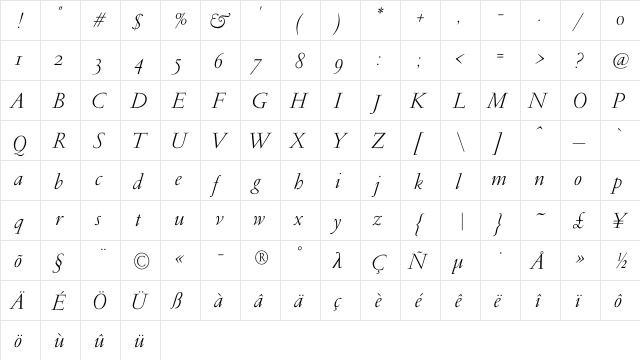
PF Garamond Classic OsF Light Italic Font Preview
Design Context for PF Garamond Classic OsF Light Typeface
PF Garamond Classic OsF Light wears its vintage influences proudly, with letterforms that recall mid-century signage, classic packaging, and nostalgia-driven design. The slanted form adds forward momentum and visual energy. Its slender proportions lend an understated elegance to any composition.
Font Pairing: Combine PF Garamond Classic OsF Light with a simple slab or neutral sans — period-accurate companions reinforce the vintage feel without competing for attention.
Pro Tip: Use PF Garamond Classic OsF Light for headlines and pull quotes rather than body copy — its personality is best appreciated in short, focused bursts.